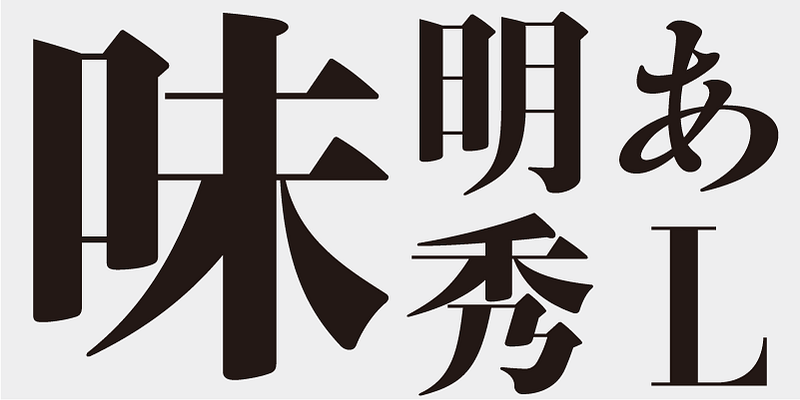
AB Ajimin Modern Syu L/EB Font Free Download is a luxurious and expressive extra bold serif typeface that merges the delicate elegance of traditional Mincho style with a sleek, contemporary sensibility. The Syu L/EB variant brings powerful contrast and refined detail, making it perfect for editorial headlines, premium branding, artistic posters, and culturally rich design projects.
Its sharp serifs, strong vertical stress, and brush-like strokes offer a distinct character that captures both modern sophistication and classic Japanese typography heritage. The font supports both Japanese and Latin scripts, allowing for seamless bilingual integration in high-end visual compositions.